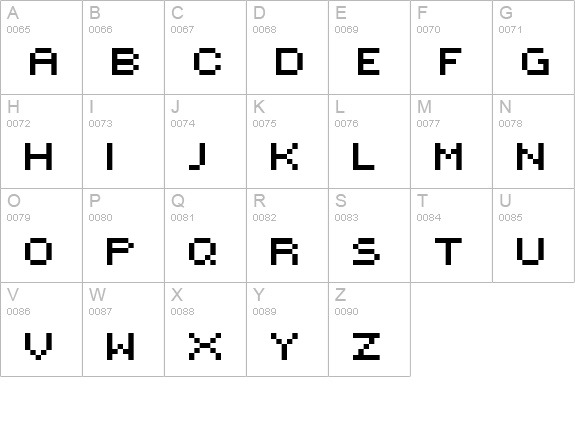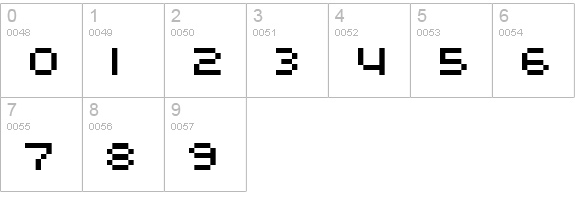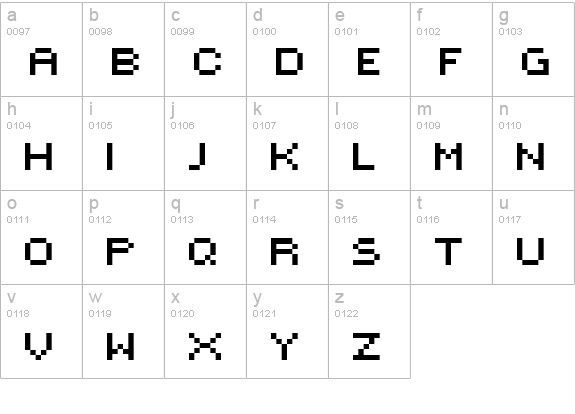
ROTORcap Extended is a distinctive, extended-width variant in the ROTORcap typeface family \xE2\x80\x94 well suited to design and typography projects.
ROTORcap Extended is a modern and stylish display font that exudes a strong and bold presence. With its intricate details and geometric shapes, this font is perfect for creating eye-catching headlines, logos, and branding materials. The extended version enhances the original ROTORcap font with additional characters and variations, giving designers even more flexibility and creativity in their projects. What sets ROTORcap Extended apart is its versatility and adaptability to various design styles, making it suitable for a wide range of applications. Whether you're working on a futuristic tech project or a sleek fashion campaign, this font will effortlessly elevate your designs to the next level. Best of all, ROTORcap Extended is available for free download at FontsMarket.com, making it accessible to designers of all levels. Don't miss out on this opportunity to add a touch of modern sophistication to your projects with ROTORcap Extended.